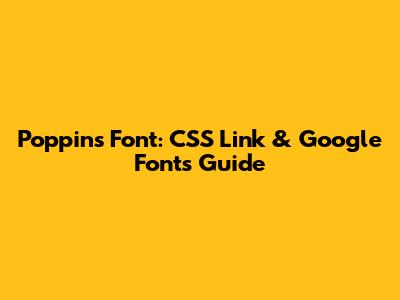
Poppins Font: CSS Link & Google Fonts Guide
Alright guys, let's dive into how you can easily use the Poppins font in your web projects! Poppins is a super popular sans-serif font known for its clean and modern look. It's a Google Font, which means it’s free and easy to incorporate into your website using a simple CSS link. In this guide, we'll walk through everything step-by-step, ensuring you get that sleek typography you're aiming for.
Why Choose Poppins?
Before we jump into the how-to, let's quickly chat about why Poppins is such a great choice. Poppins boasts a geometric design that makes it incredibly readable and versatile. Whether you're designing a minimalist blog, a corporate website, or a vibrant portfolio, Poppins can adapt to suit your needs. Its clean lines and balanced letterforms contribute to a professional and modern aesthetic. Moreover, because it’s a Google Font, you don’t have to worry about licensing issues or hosting the font files yourself. It’s all handled by Google’s robust infrastructure, ensuring fast loading times for your site visitors. Using Poppins can significantly enhance your site's visual appeal, making it more engaging and user-friendly. Plus, with various weights and styles available, you have plenty of options to play around with to achieve the perfect look for your project. The font's adaptability makes it a go-to choice for designers aiming for a contemporary and polished feel. So, if you're looking to refresh your website's typography, Poppins is definitely worth considering. Seriously, give it a try – you might just fall in love with it!
Advanced Tips and Tricks
Alright, now that you've got the basics down, let's explore some advanced tips and tricks to really make the most of the Poppins font.
Using Specific Font Weights
Poppins comes in a variety of weights, from 100 (Thin) to 900 (Black). To specify a particular weight in your CSS, use the font-weight property. For example:
.heading {
font-family: 'Poppins', sans-serif;
font-weight: 700; /* Bold */
}
.subheading {
font-family: 'Poppins', sans-serif;
font-weight: 400; /* Normal */
}
This allows you to create visual hierarchy and emphasize different parts of your text. Experiment with different weights to find the perfect balance for your design. Keep in mind that using too many different weights can impact your website's performance, so choose wisely!
Optimizing Font Loading
To ensure your website loads quickly, you can use the font-display property in your CSS. This property tells the browser how to handle the font loading process. Here are a few options:
• swap: The text is displayed in a fallback font until Poppins is fully loaded. This is generally the best option for performance.
• fallback: The text is displayed in a fallback font for a short period, then switches to Poppins if it's loaded. If not, the fallback font is used.
• CSS Syntax: Verify that you’ve correctly specified the font-family in your CSS. Double-check for typos!
• Limit Font Weights: Only include the font weights you actually need. Each additional weight increases the file size.
• Use preconnect: Ensure you have the `<link rel=